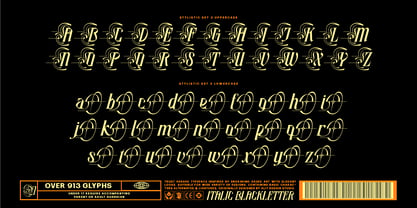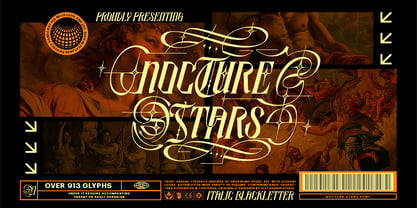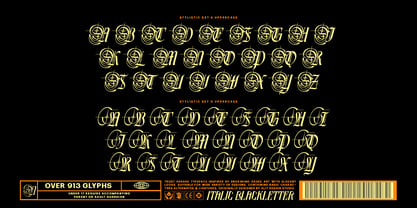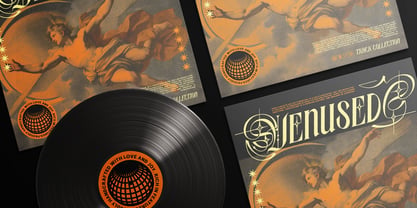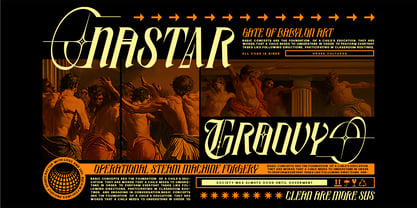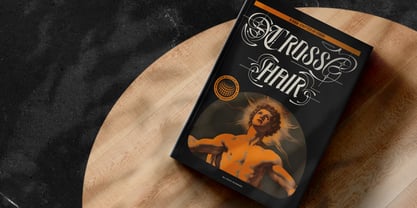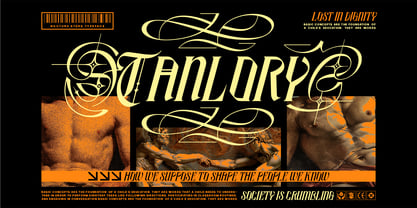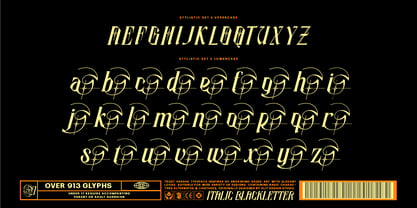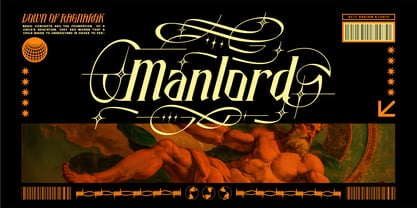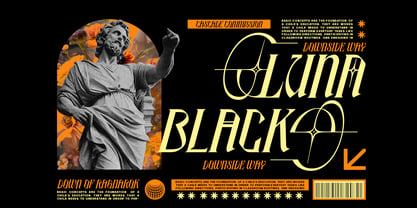
Nocture Stars
by Alit Design
The Nocture Stars Font Family was designed by Alit Suarnegara and published by Alit Design. Nocture Stars contains 1 styles. More about this family
Where Ancient Heritage Meets Modern Rebellion. Introducing Nocture Stars, a typeface that defies the boundaries of time. Inspired by the intricate precision of engraving Greek art and the dark romance of the medieval era, this font is a bold fusion of history and contemporary streetwear culture. Nocture Stars is not just a font; it is a visual statement. It takes the rigid structure of classic Blackletter gothic scripts and injects it with a dynamic, italicized speed. The result is a "Trust Parade" typeface that feels aggressive yet elegant, sharp yet fluid—perfect for designs that demand attention. The Design Aesthetic Nocture Stars is characterized by its sharp diamond-shaped terminals, dramatic high-contrast strokes, and a rhythmic flow that mimics the hand of a master calligrapher. It perfectly captures the trending "Acid Graphics," "Brutalism," and "Y2K Grunge" aesthetics while maintaining the dignity of a classic text. Whether you are designing for a metal band, a luxury streetwear brand, or an avant-garde editorial, this font delivers a mercilessly cool vibe. Unrivaled Versatility & Features Don't let the complex look fool you; Nocture Stars is built for professional use. With a staggering 913 Glyphs, this font offers endless possibilities for customization. You aren't just typing; you are crafting a logo. Massive Alternate Library: Includes multiple Stylistic Sets (as seen in the previews) allowing you to choose between simple, legible characters or wild, ornate letters with sweeping swashes. Decorative Ligatures: Seamlessly connect letters for a custom, hand-lettered logo feel. Complete Character Set: Includes Uppercase, Lowercase, Numerals, Punctuation, and Multilingual symbols. Perfect For: Apparel Design: T-shirts, hoodies, and streetwear merchandise that needs a "hard" look. Music Industry: Album covers, band logos, and gig posters (Metal, Rock, Techno, Phonk). Branding: Logos, labels, and packaging that require a touch of dark elegance or "Gate of Babylon" grandeur. Social Media: Eye-catching overlays for Instagram, TikTok, and YouTube thumbnails. Product Content: Nocture Stars (Regular/Italic Blackletter) Access to 913 Glyphs (Standard & Stylistic Alternates) Full Punctuation & Numerals Elevate your design game. Shape the people you know. Unleash the Nocture Stars.
Designers: Alit Suarnegara
Foundry: Alit Design